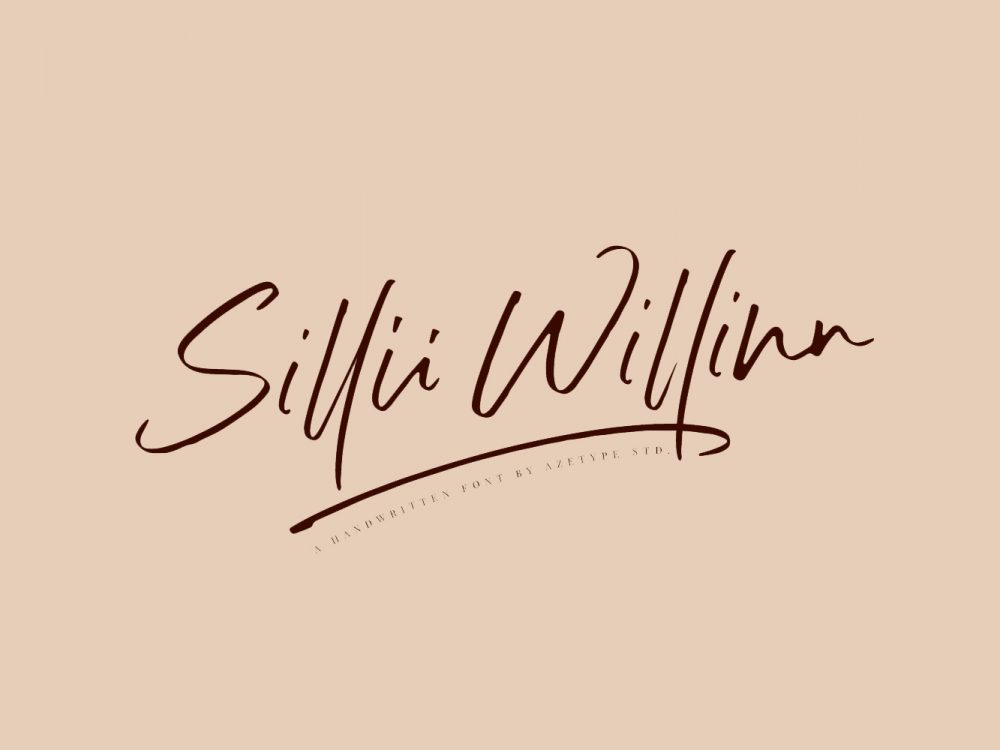
Sillii Willinn Free Font
Sillii Willinn Free Font is an interesting handwritten font that has an elegant style and is very suitable for various design projects. use this font for prints, branding, cards, posters, and more. If you wish to access the full license, make sure to go get the full version.